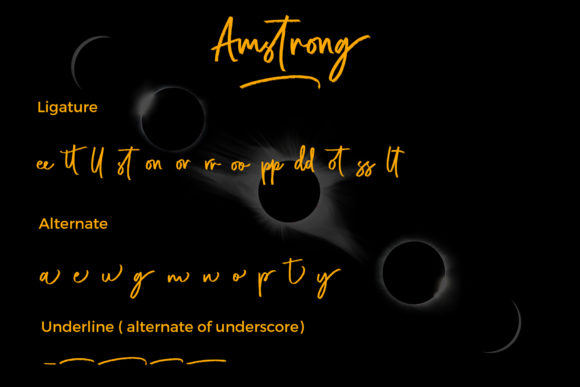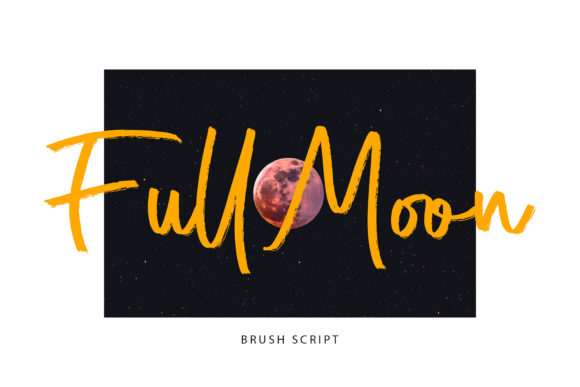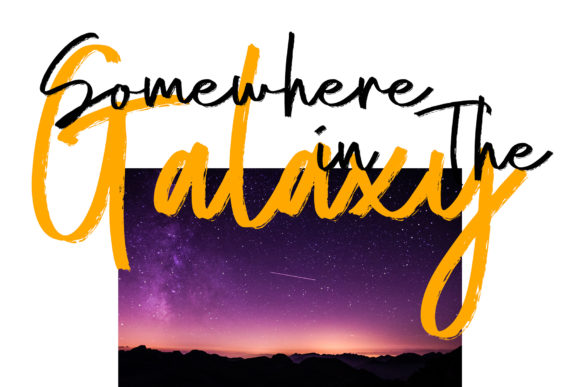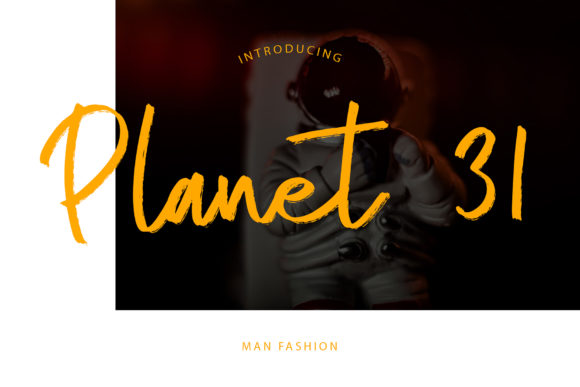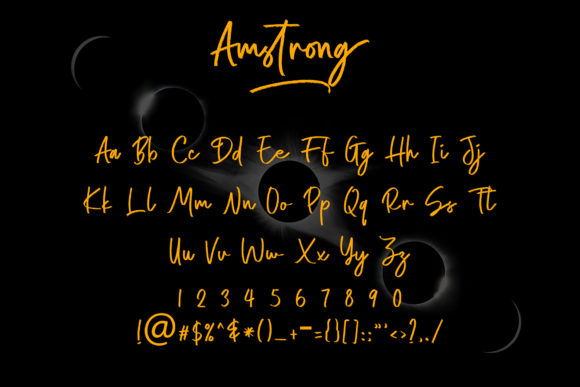
The Elegant Amstrong Font: Elevate Your Designs with Luxury and Modernity
I’ll never forget the time I was working on a wedding design project, and my client asked me to create a beautiful, elegant logo that would make their special day even more memorable. As I scrolled through my font library, I stumbled upon the stunning Amstrong font. Its luxurious and modern vibe instantly caught my attention, and I knew I had found the perfect fit. In this article, I’ll share my experience with the Amstrong font, its features, and how to make the most of it in your designs.
A Personal Review of Amstrong Font
- ✨ Elegant and luxurious feel, perfect for high-end designs
- ✅ Modern and fresh look that will make your designs stand out
- 💫 Hand-written style that adds a personal touch to your work
- 🎨 Versatile and suitable for a wide range of design projects, from branding and logos to wedding designs and social media posts
While the Amstrong font is amazing, there are a few things to keep in mind:
- 🤔 Some characters may not work well in all contexts, so be sure to test the font thoroughly
- ⚠️ The font may not be suitable for body text or long paragraphs, as it’s best used for headlines and titles
- Experiment with OpenType features, such as glyphs and stylistic alternates, to add more personality to your text
- Explore the OpenType panel to access glyphs, stylistic alternates, and other advanced typography features
The Story Behind Amstrong Font
The Amstrong font was designed by a talented typographer who wanted to create a luxurious and modern script font that would elevate designs to the next level. Inspired by classic calligraphy and modern digital art, the Amstrong font is a unique and elegant addition to any design project.
| Font Name | Amstrong Font |
| Author | formatikastd |
Q: What type of designs is the Amstrong font best suited for?
A: The Amstrong font is perfect for branding projects, logos, wedding designs, social media posts, advertisements, and any other design project that requires an elegant and luxurious touch.
Q: Can I use the Amstrong font for body text?
A: While the Amstrong font is beautiful, it’s best used for headlines and titles. For body text, you may want to choose a more readable font to ensure your text is clear and easy to read.